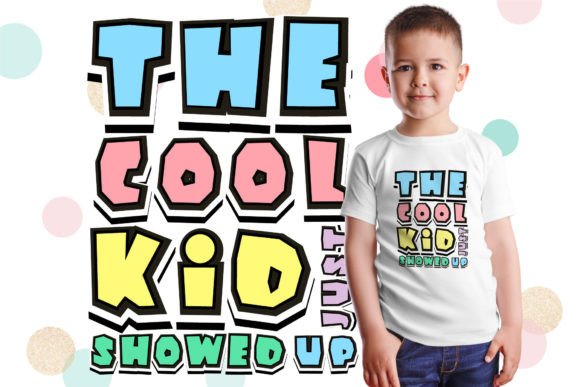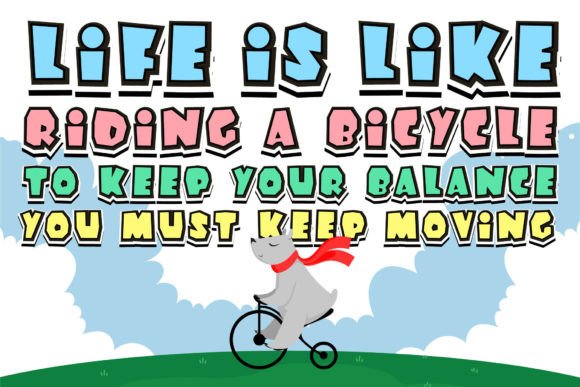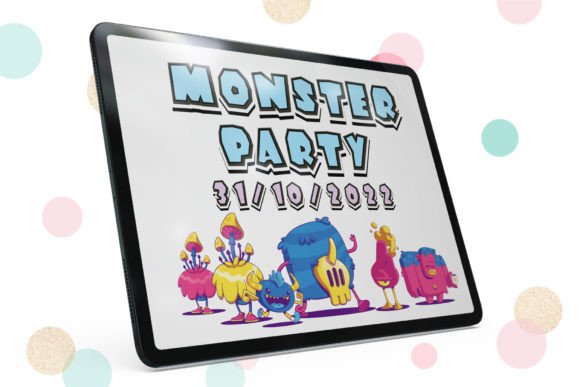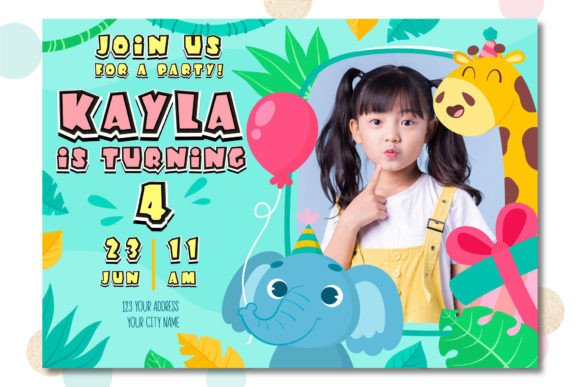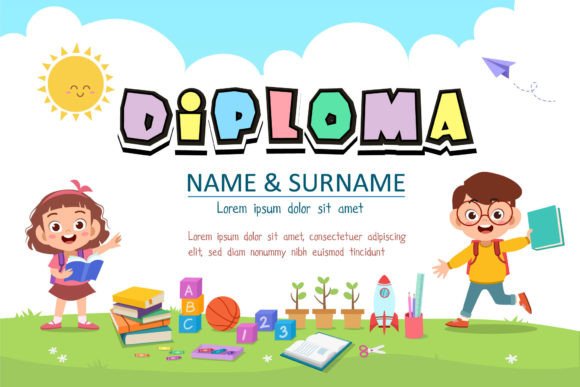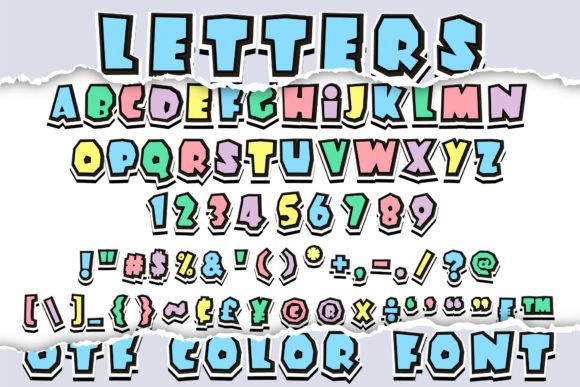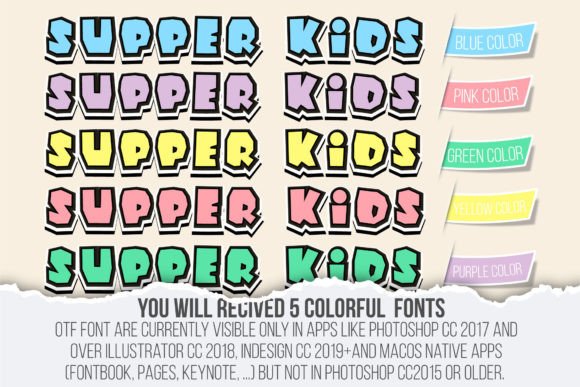
Super Kids Font
About Super Kids Font
Get ready to unleash the fun and playfulness with the Super Kids color font! This vibrant and friendly font is designed to bring a burst of color and joy to your projects.
Whether you’re working on designs for children’s parties, school projects, playful branding, or any other creative endeavor that needs a jolly touch, the Super Kids font is the perfect choice. Its colorful letterforms and playful style embody the spirit of youth and playfulness, adding a cheerful vibe to your designs.
With its wide range of colors and friendly characters, the Super Kids font offers endless creative possibilities. Use it to create eye-catching posters, playful invitations, vibrant logos, captivating social media posts, and much more.
Let your imagination run wild as you mix and match colors, experiment with different layouts, and create delightful compositions with the Super Kids font. Its playful nature will bring a sense of joy and energy to your projects, captivating both kids and adults alike.
So, whether you’re designing for kids’ events, educational materials, or simply want to infuse your designs with a cheerful touch, the Super Kids font is here to help you create a world of color and fun. Embrace the playfulness, spread the joy, and let the Super Kids font make your designs super awesome!